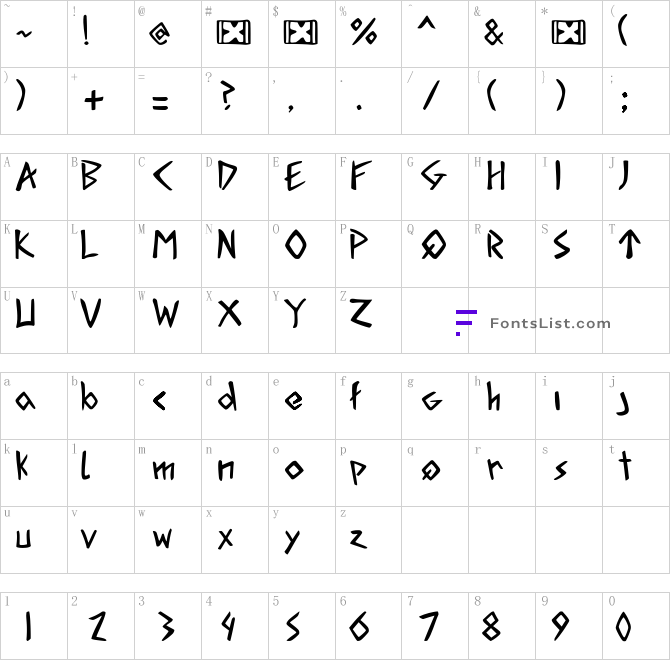
- Font Name:Acadian Runes
Acadian-Runes-Regular-copy-1-.ttf is a very beautiful artistic font, Acadian-Runes-Regular-copy-1-.ttf is widely used in the design and printing of various books and pictures,Acadian-Runes-Regular-copy-1-.ttf has a strong visual impact,Acadian-Runes-Regular-copy-1-.ttf is a commonly used font in newspapers, magazines and books, and is used in posters, e-commerce Poster design, store design, logo design, font design and other fields.Acadian-Runes-Regular-copy-1-.